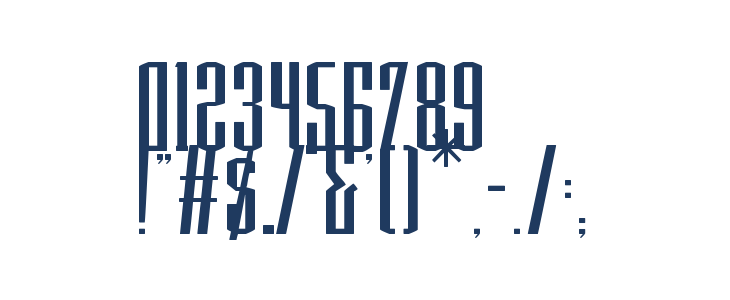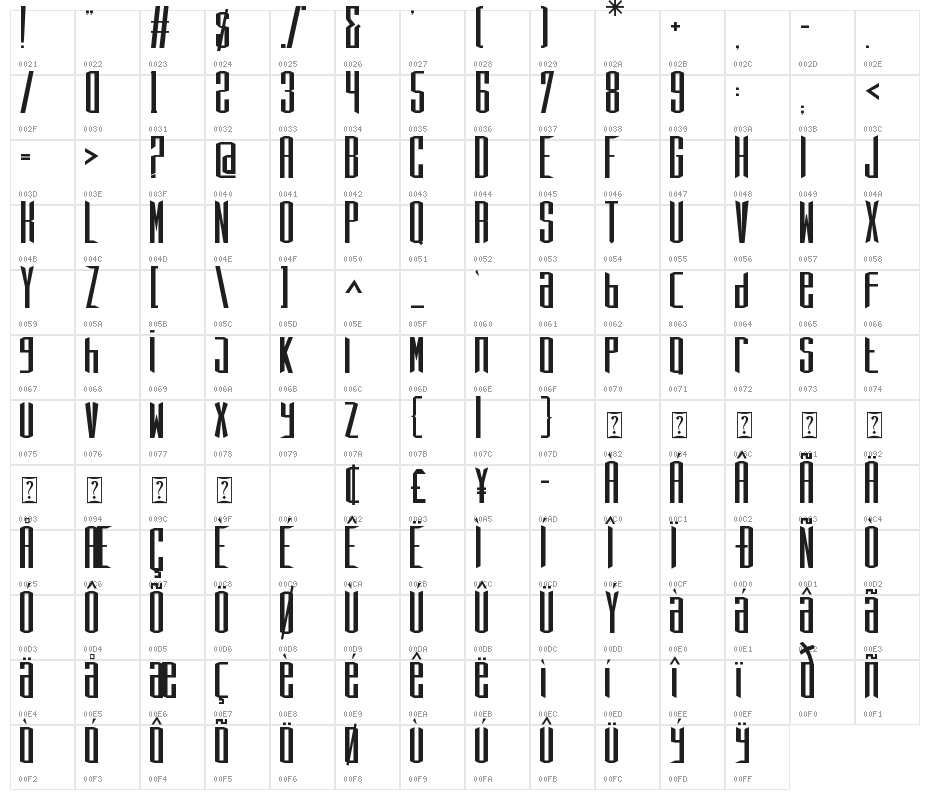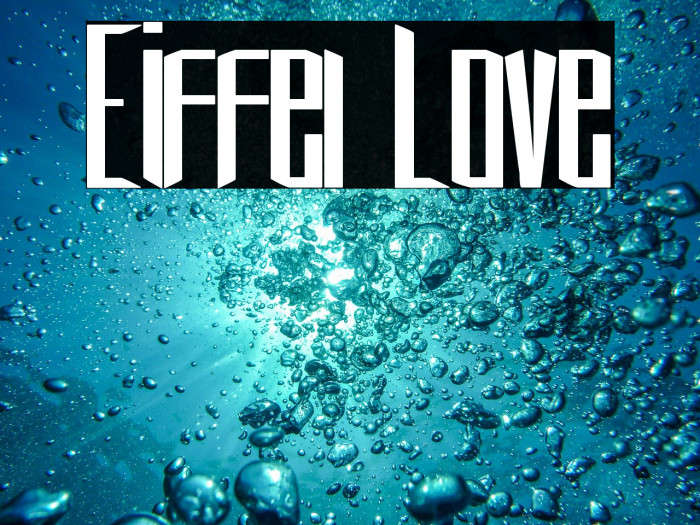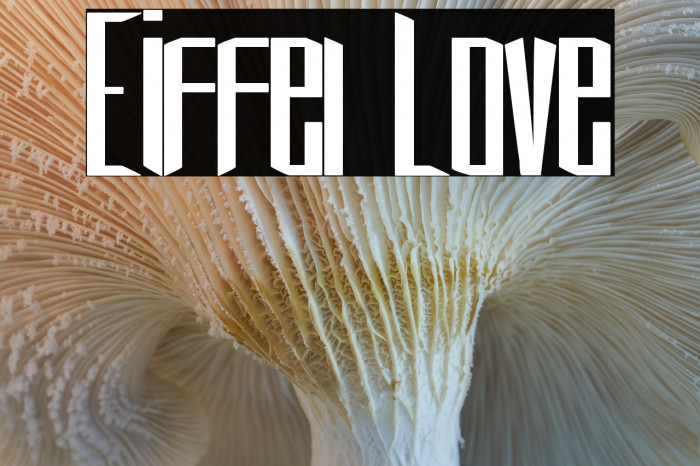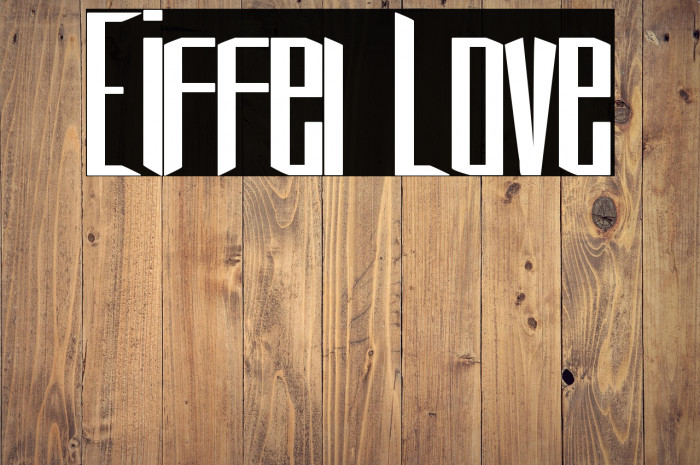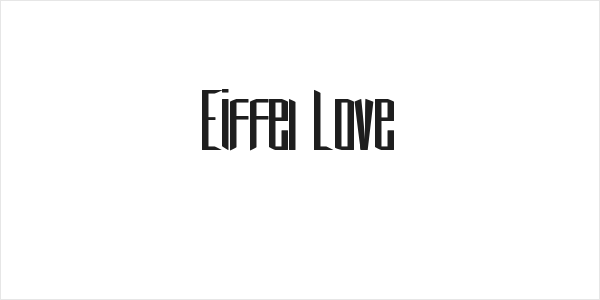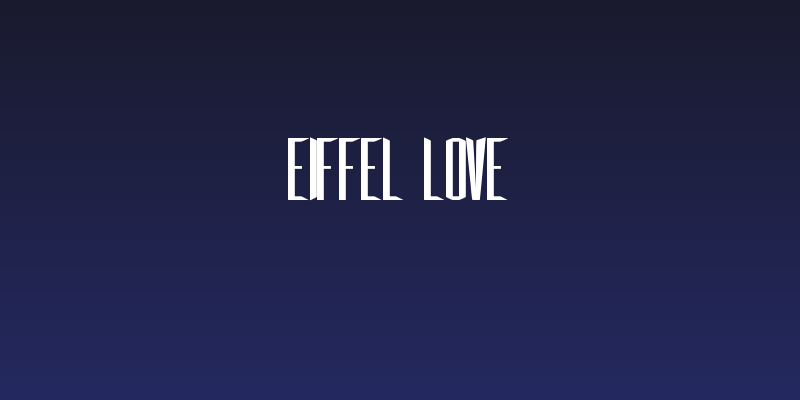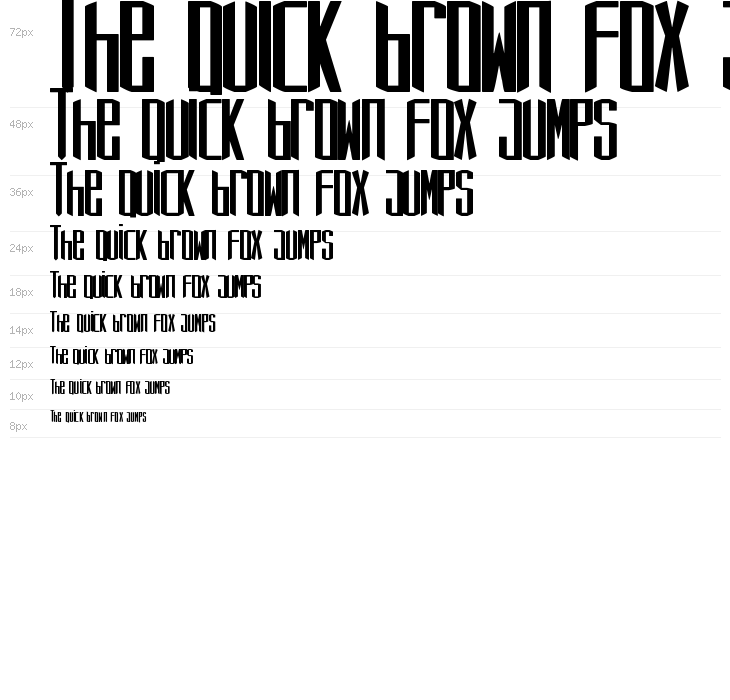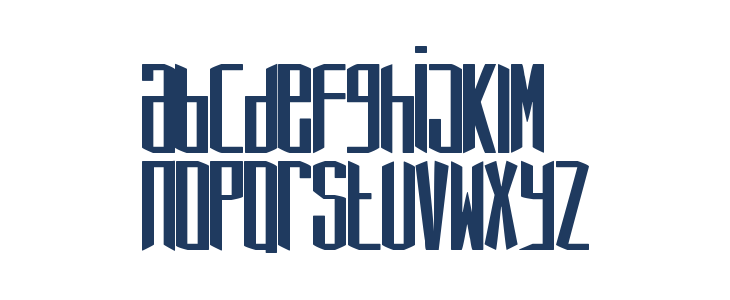
Eiffel Love Font
Eiffel Love Description
This font features a highly condensed and elongated design, characterized by its tall, narrow letterforms. The strokes are bold and consistent, creating a striking visual impact. The geometric structure of the characters gives it a modern and avant-garde appearance, while the sharp angles and clean lines add a sense of precision and sophistication. The uppercase and lowercase letters maintain a uniform height, enhancing the font's cohesive look. The numerals and special characters follow the same design principles, ensuring a harmonious overall style.
| Proposed Projects | Ideal for modern branding, poster design, and editorial headlines where a strong visual presence is required. |